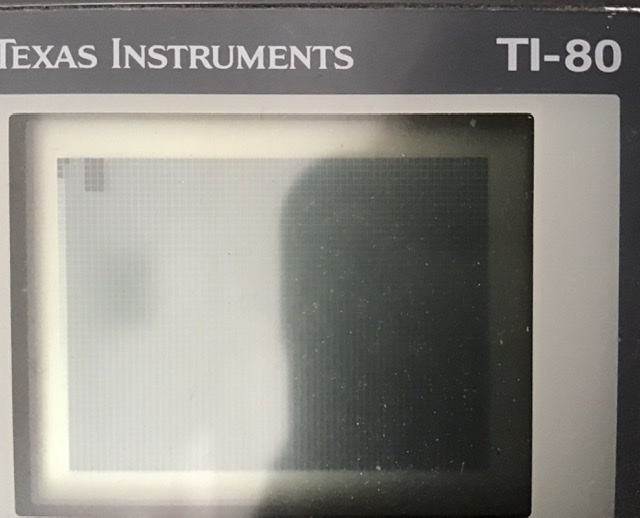
/ and \ are incorrrect and ' is missing altough its more like a very small r on the actual calculator
@senpaifurret: I could have used the device's division-slash as the solidus, but I prefer the fraction-slash so that's what I used.
As far as I can tell, the TI-80 does not use apostrophe or single quote. Feel free to share a photo or screenshot if it does.
@hrrsnmb it doesn't realy have an apostrophe but it r for radian does look very similar trim one pixel and move a bit to the right, it would just work fine its better than nothing since apostrophe is pretty common in modern day English :).
@senpaifurret: I agree the apostrophe/single quote is pretty hard to go without - I went ahead & just bisected the double-quote to create them. cheers